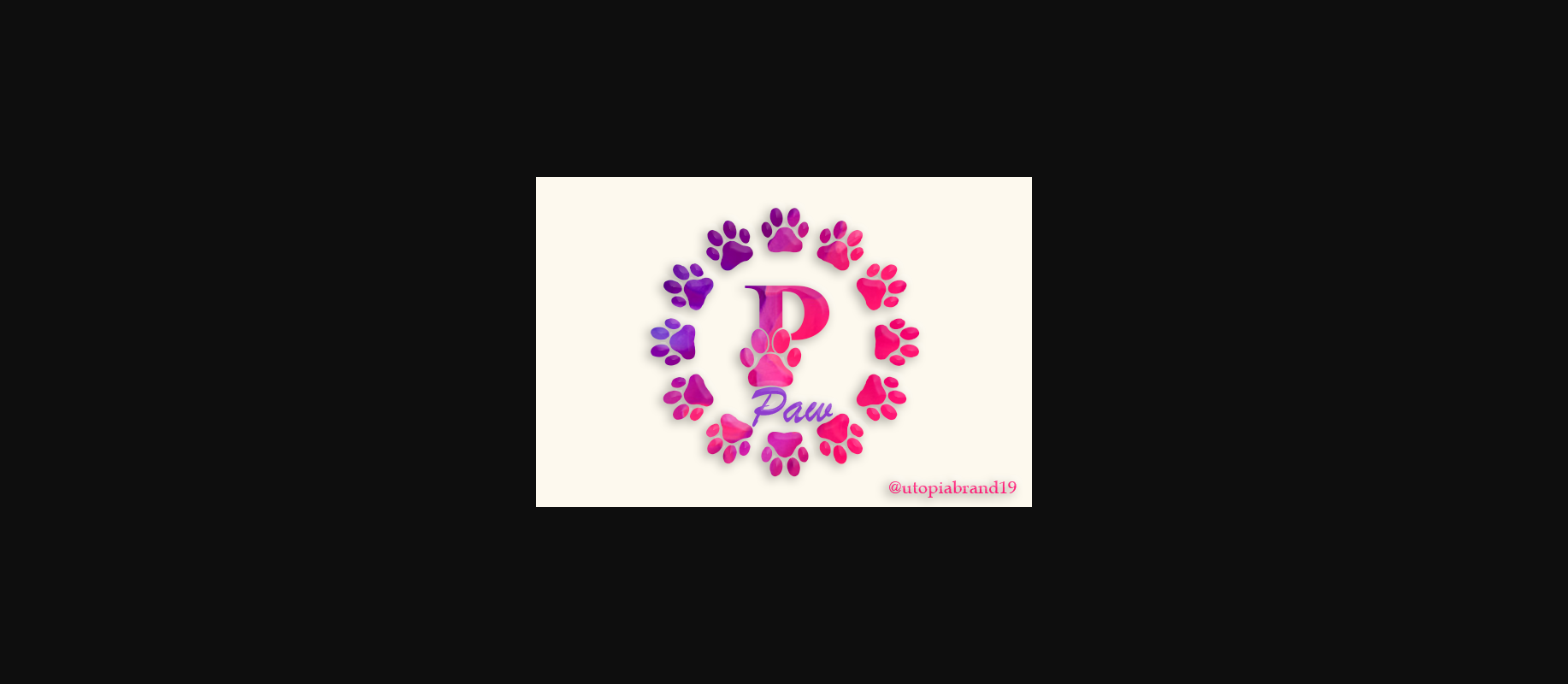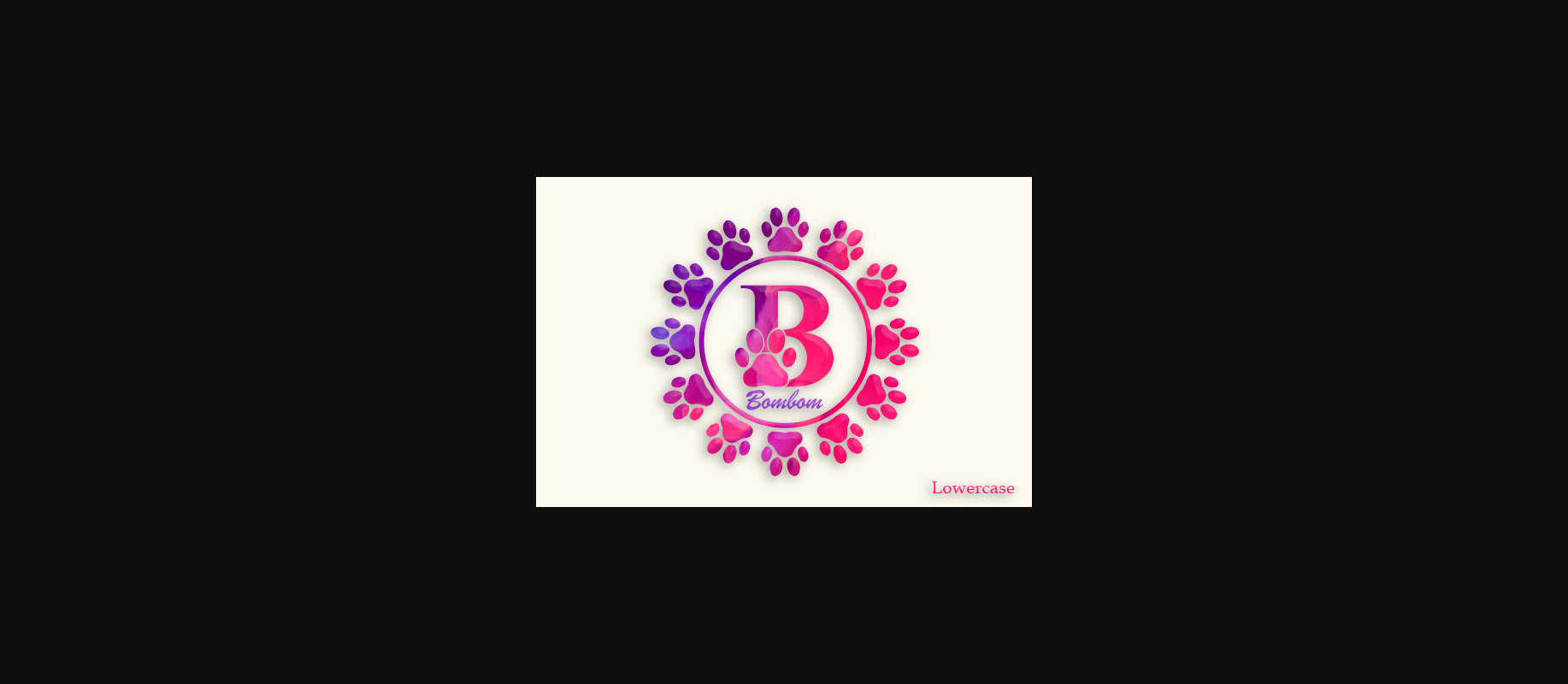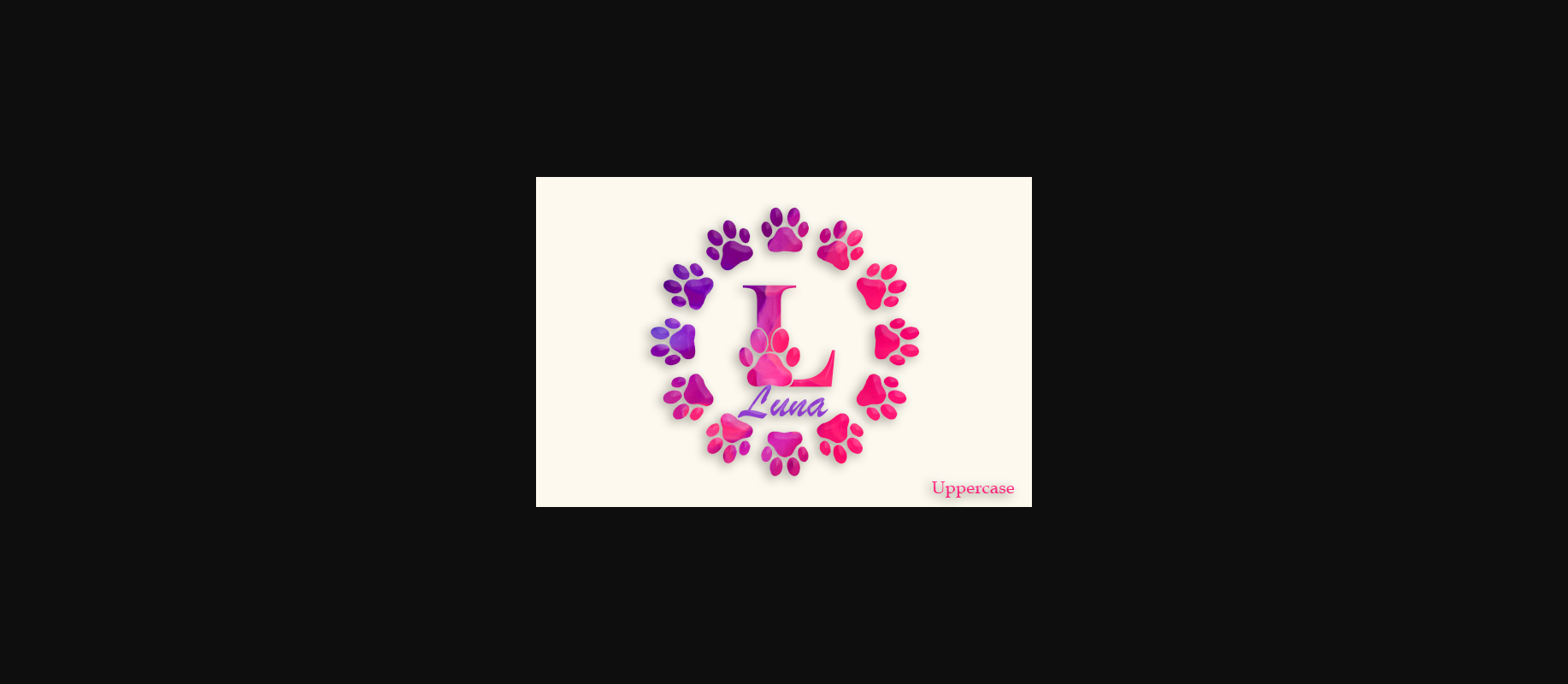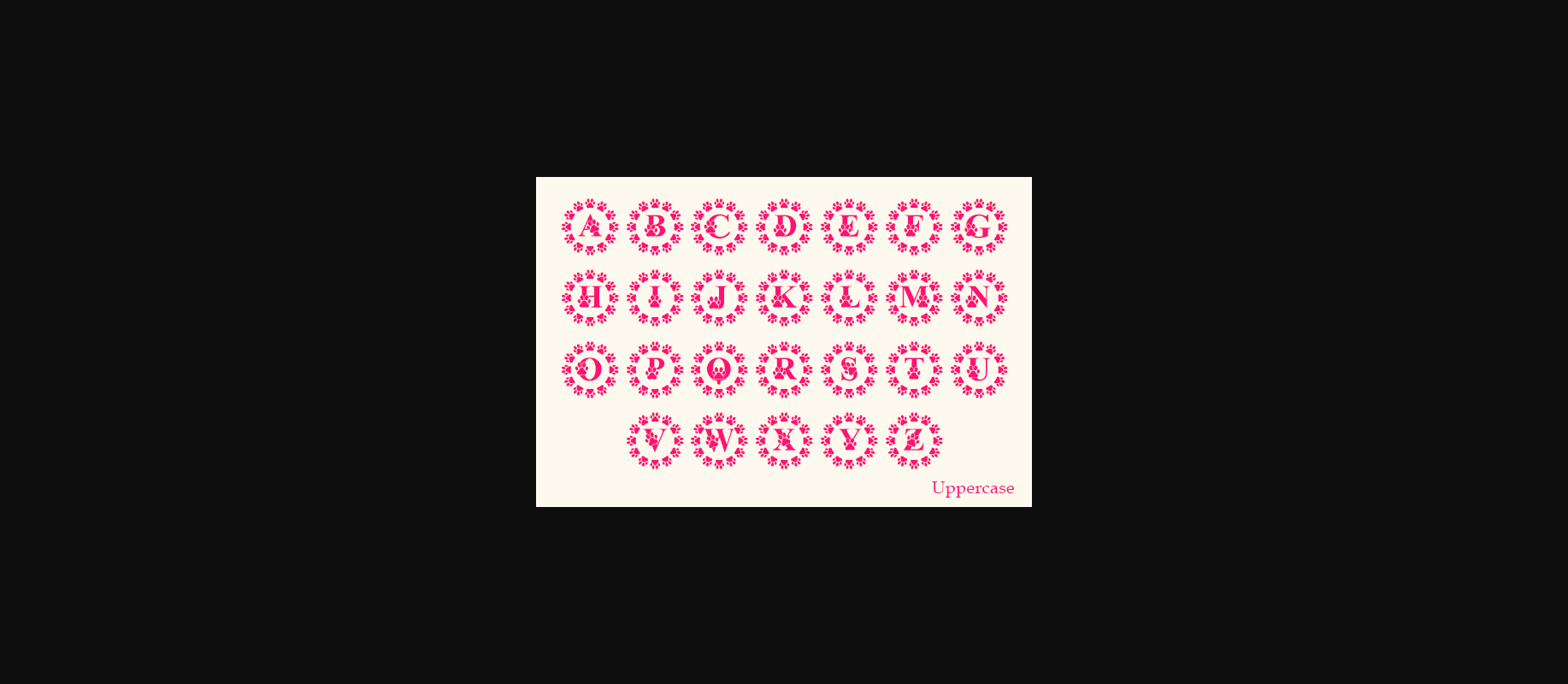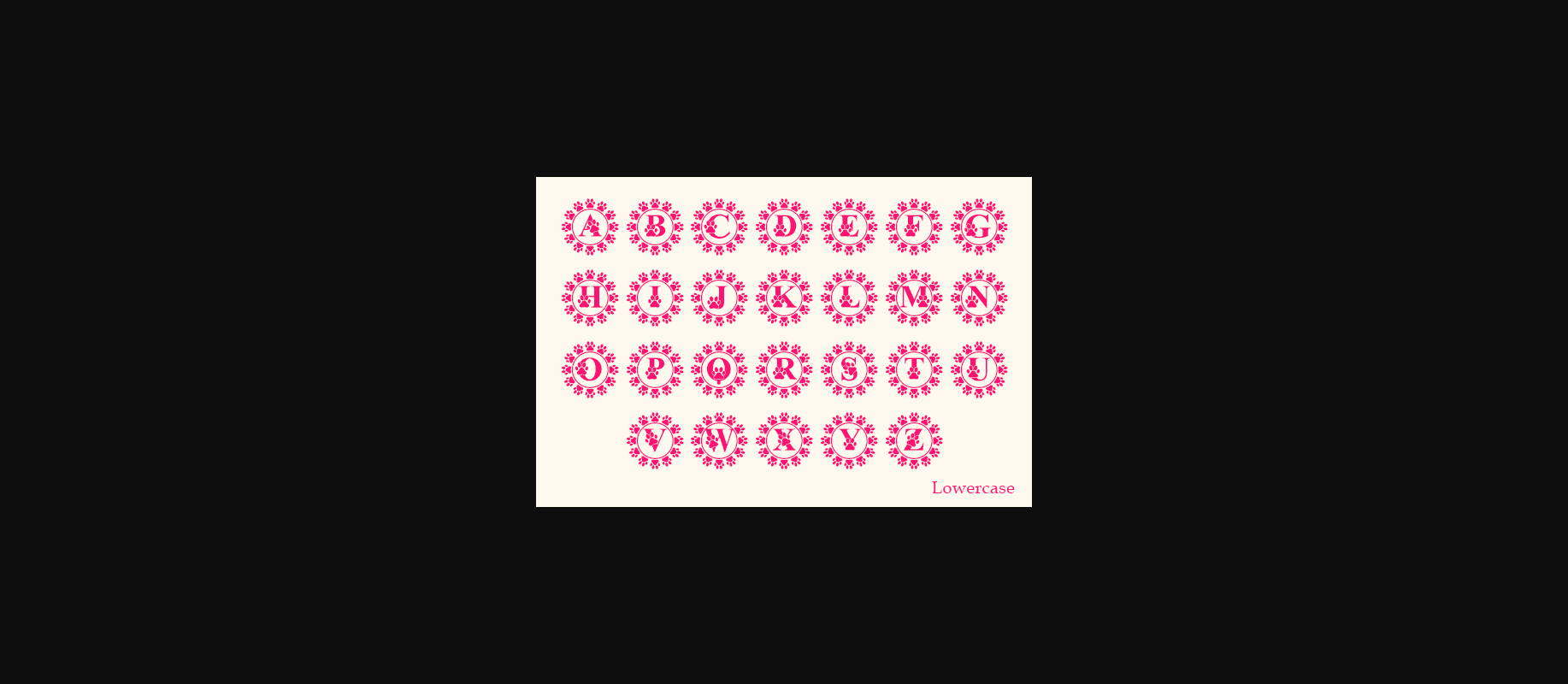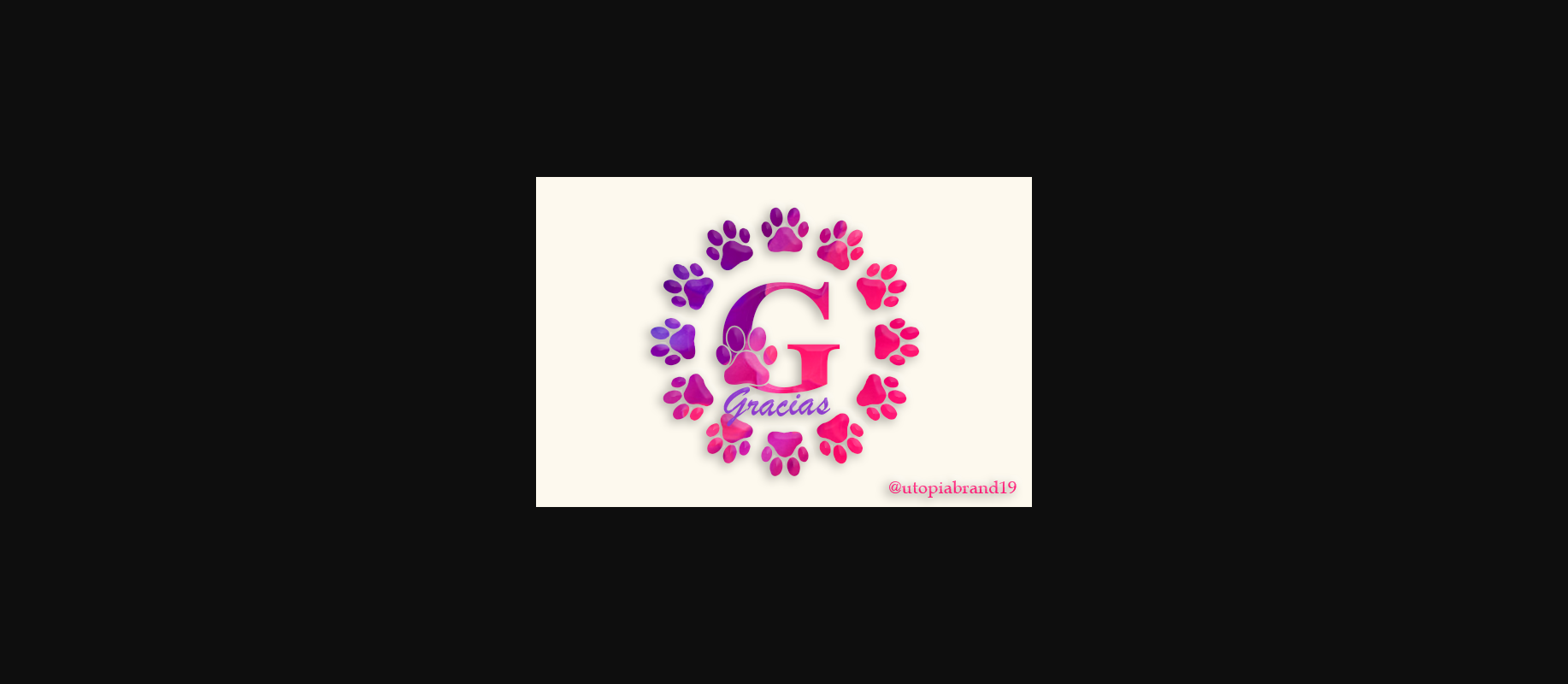
Paw Monogram Font
About Paw Monogram Font
Paw Monogram is an adorable decorative font, featuring lovely ornaments. Fall in love with its authentic feel and use it to create gorgeous wedding invitations, beautiful stationary art, eye-catching social media posts, and cute greeting cards.